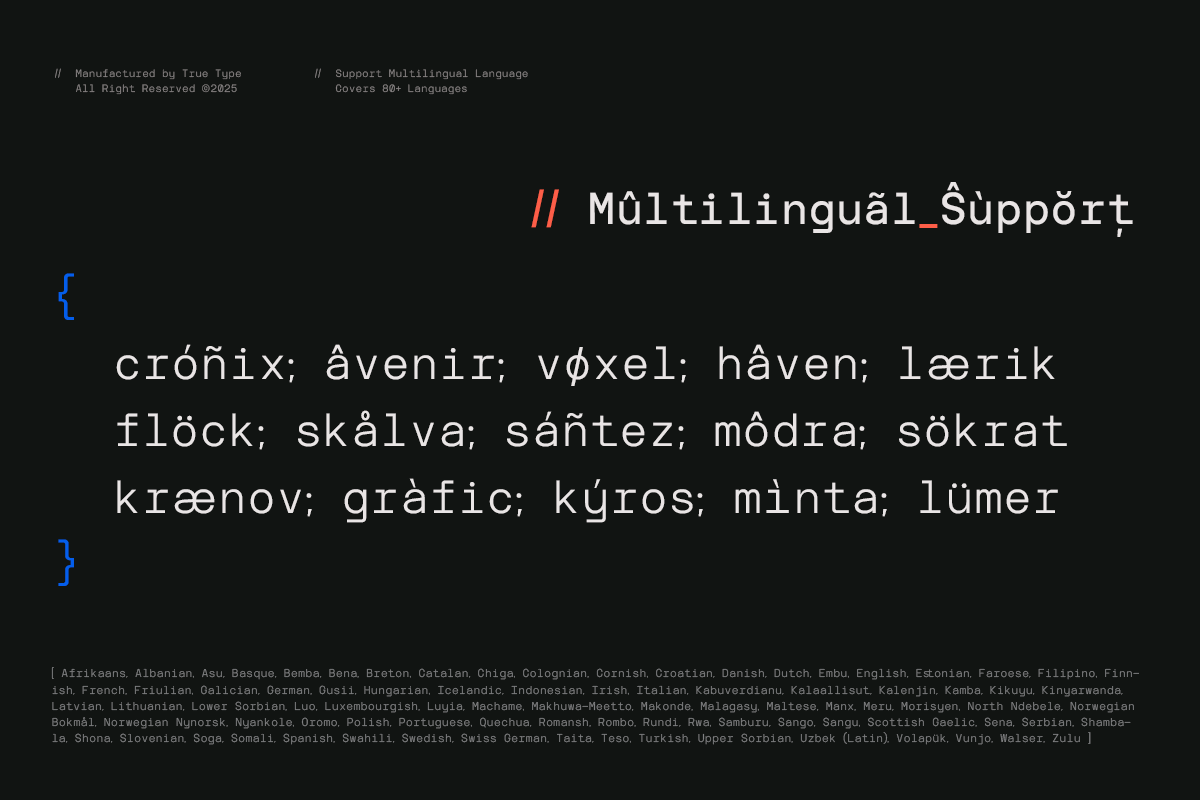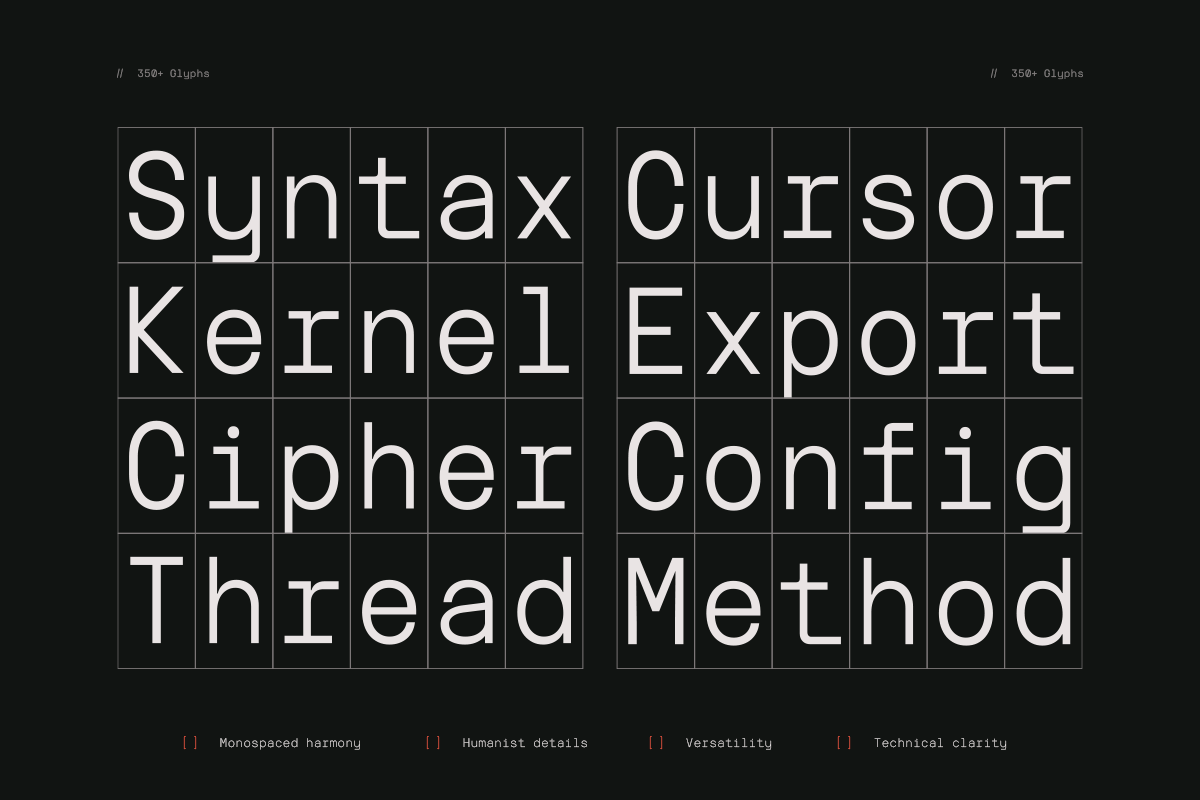
Interval Modern Grid Perfect Monospace Font
Interval Modern Grid Perfect Monospace Font is a versatile typeface ideal for various projects, including logos, branding, posters, blog headers, advertisements. The free version includes a full set of uppercase and lowercase letters, available in OTF format.